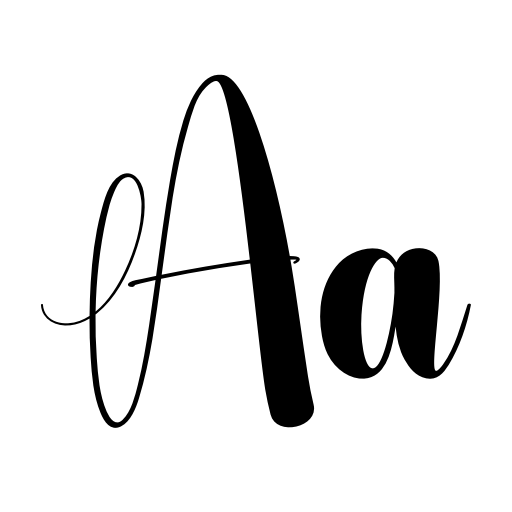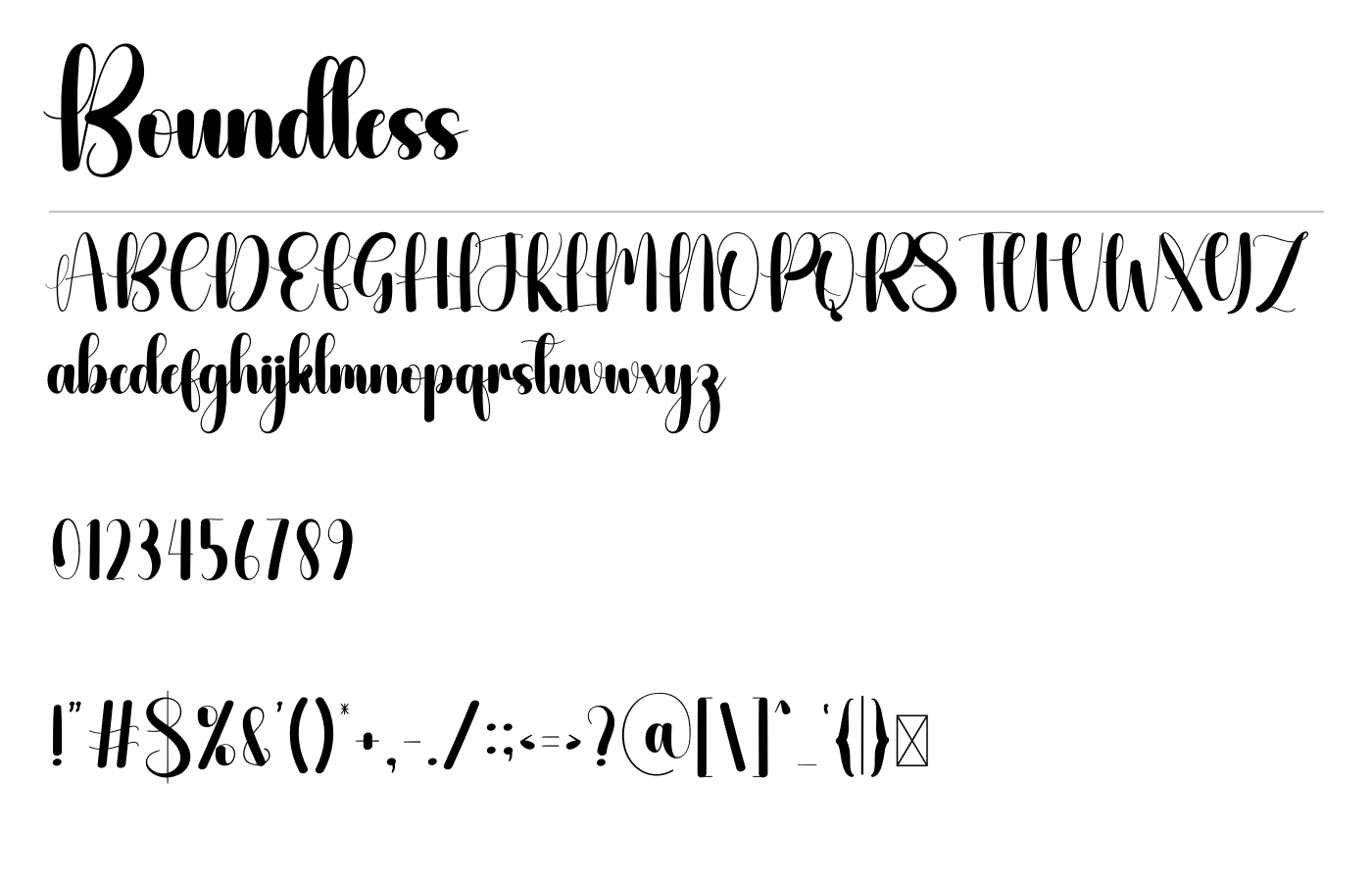
Boundless is an elegant script font featuring bold, flowing strokes with high contrast between thick and thin lines, giving it a stylish and sophisticated feel. Its tall, narrow letterforms and decorative swashes lend it a playful yet refined personality, ideal for headlines, branding, and invitations where a touch of charm and creativity is desired. This font works beautifully for fashion, luxury, or creative projects that want to communicate both elegance and modern flair.
Boundless Font